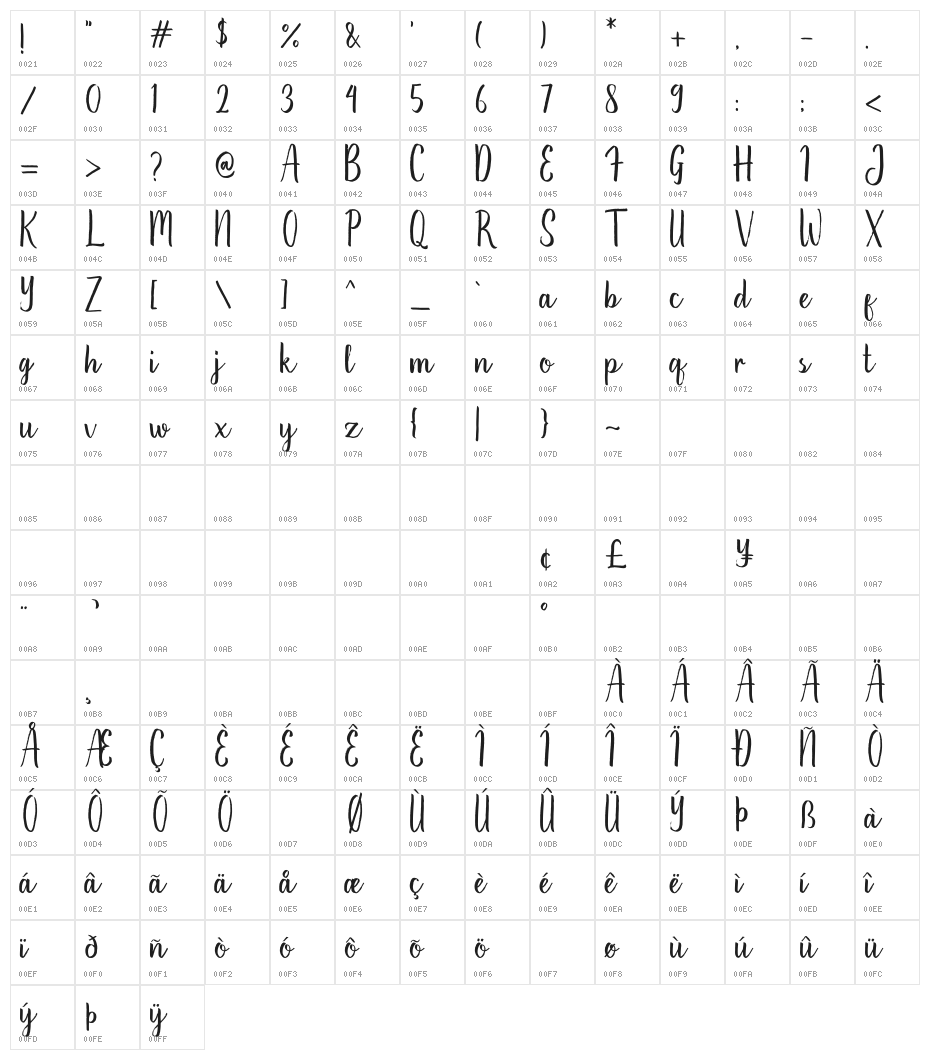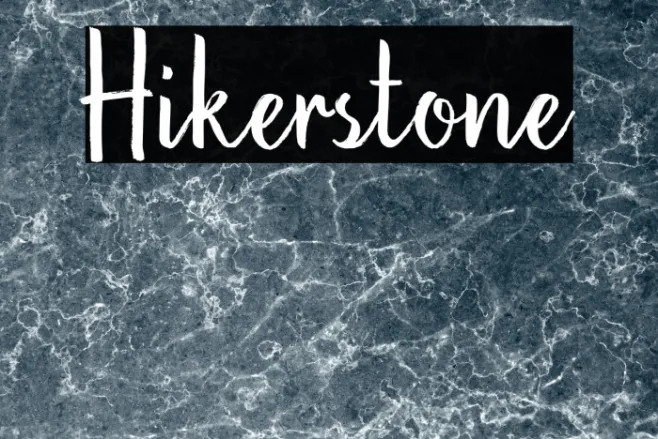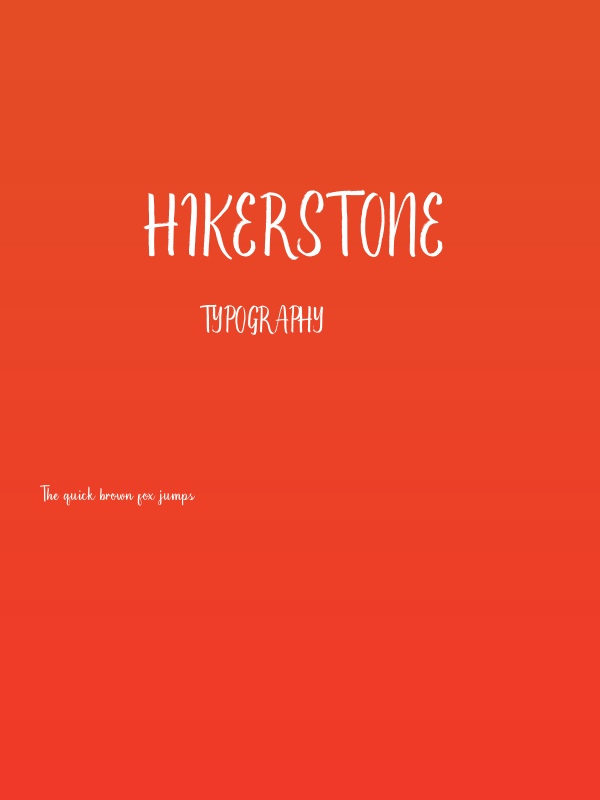
Hikerstone Font
Hikerstone Description
This font features a lively and dynamic handwritten style, characterized by its fluid and organic strokes. The uppercase letters are tall and slender, with a slight slant that adds a sense of motion and energy. The lowercase letters are more rounded and connected, creating a harmonious flow that mimics natural handwriting. The numerals and special characters maintain the same playful and informal aesthetic, making them suitable for creative and expressive designs. The overall appearance is both casual and artistic, ideal for projects that require a personal touch.
| Proposed Projects | Ideal for greeting cards, invitations, personal branding, and creative posters. |